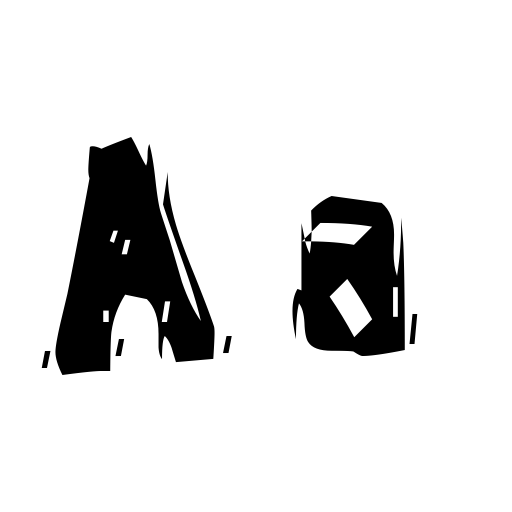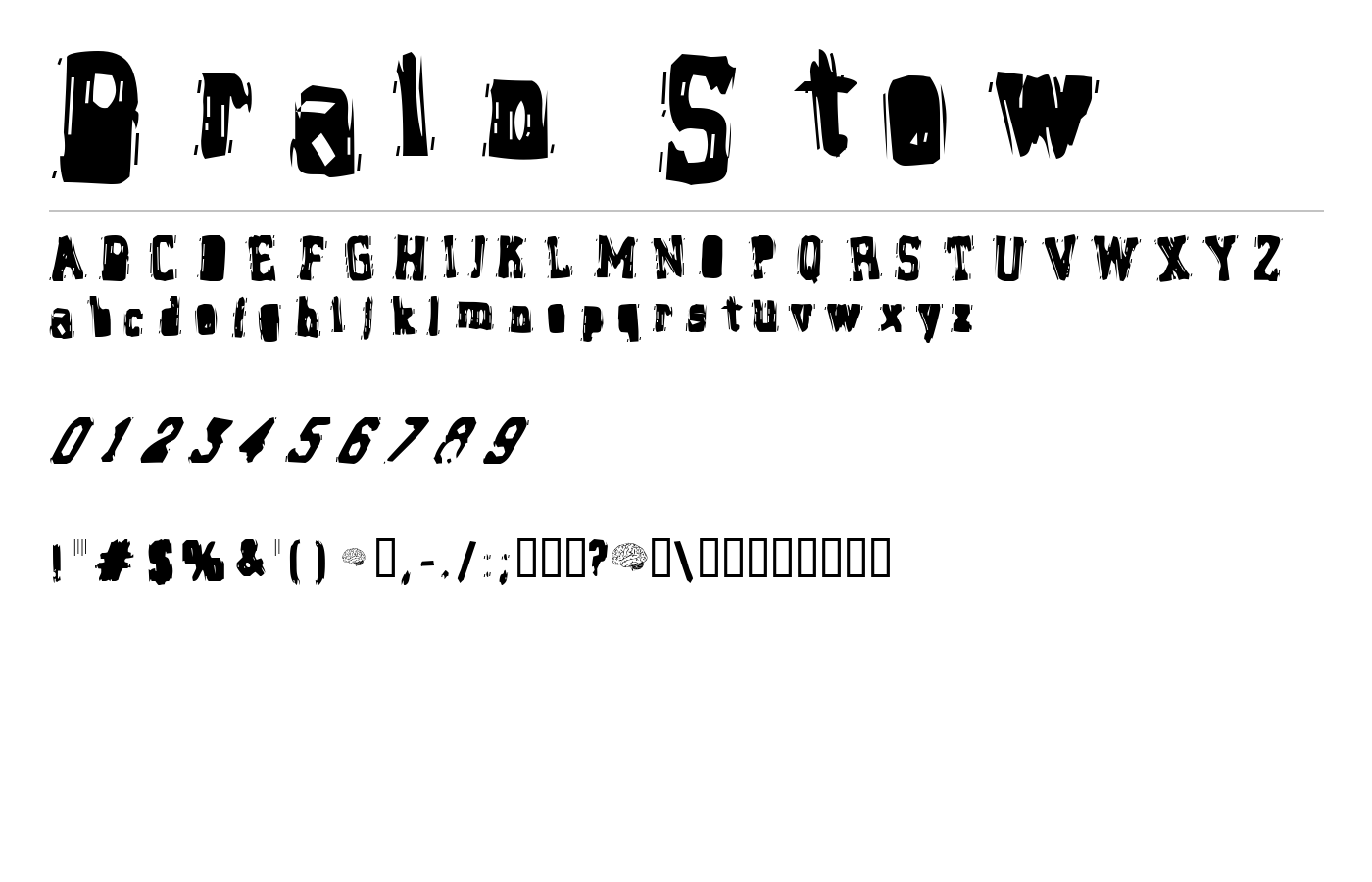
Brain Stew is a bold, distressed sans serif font with a rough, grungy texture that gives it a raw and edgy feel. Its irregular shapes and uneven stroke widths create a dynamic, handmade look perfect for expressive headlines, posters, and branding that aims to stand out with a rebellious or alternative vibe. This font works well for projects that want to convey energy, creativity, and a bit of chaos.
Brain Stew Font